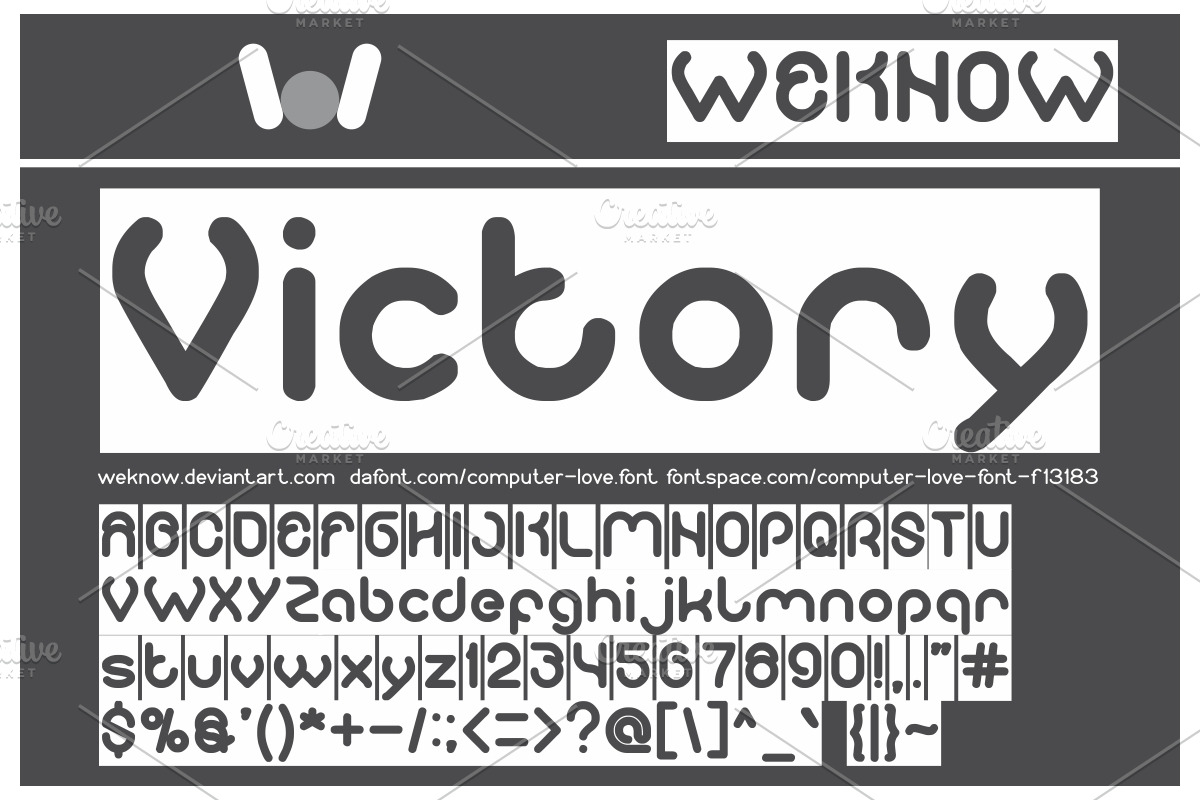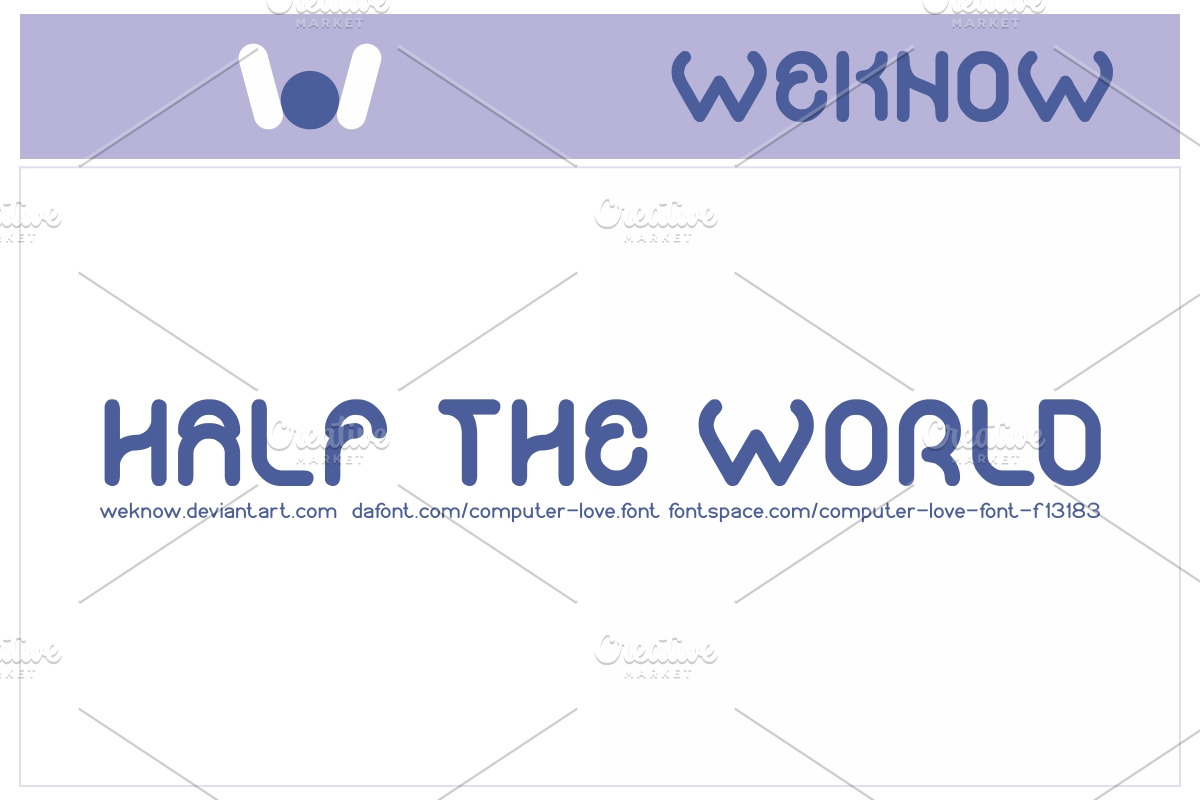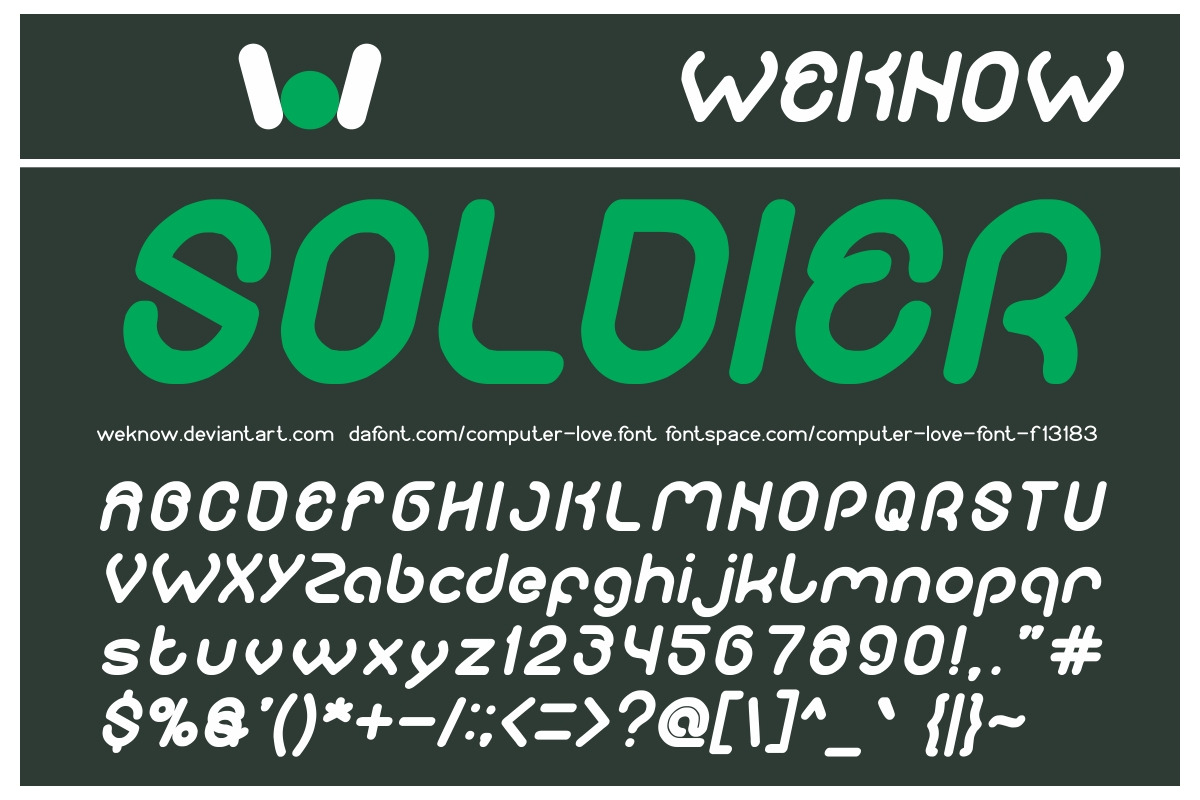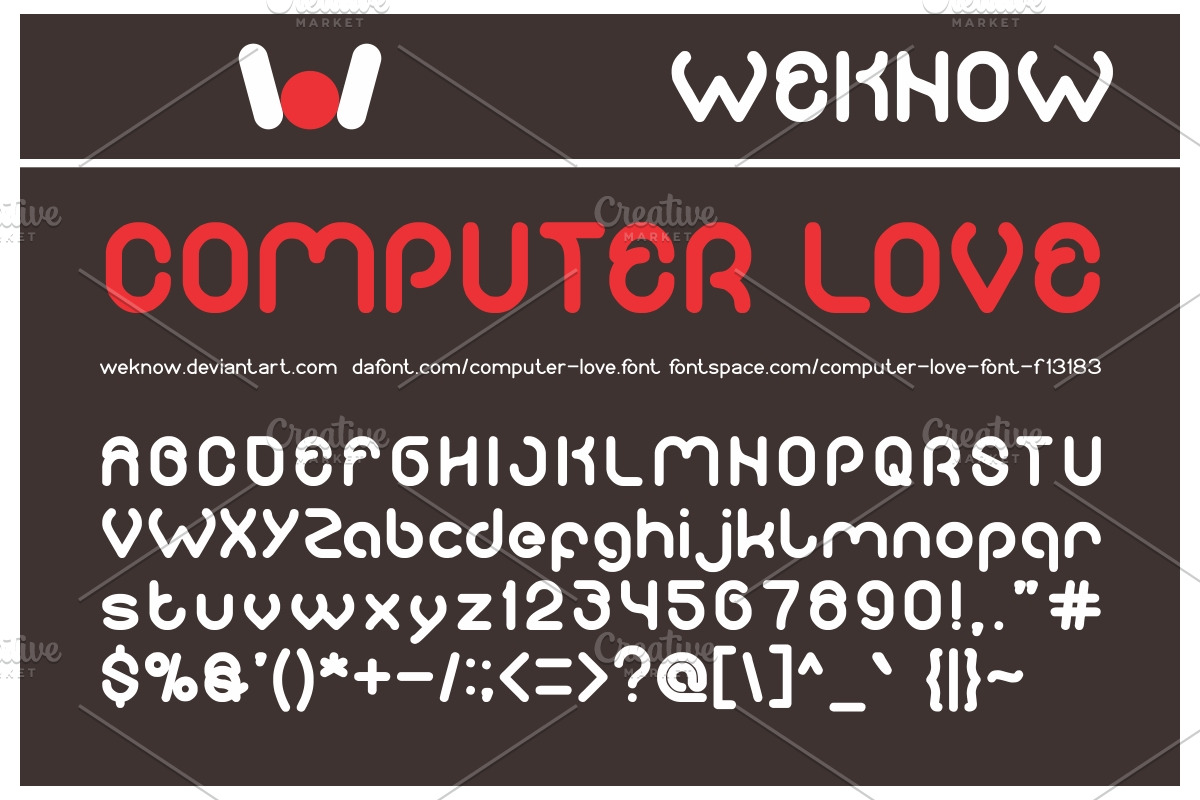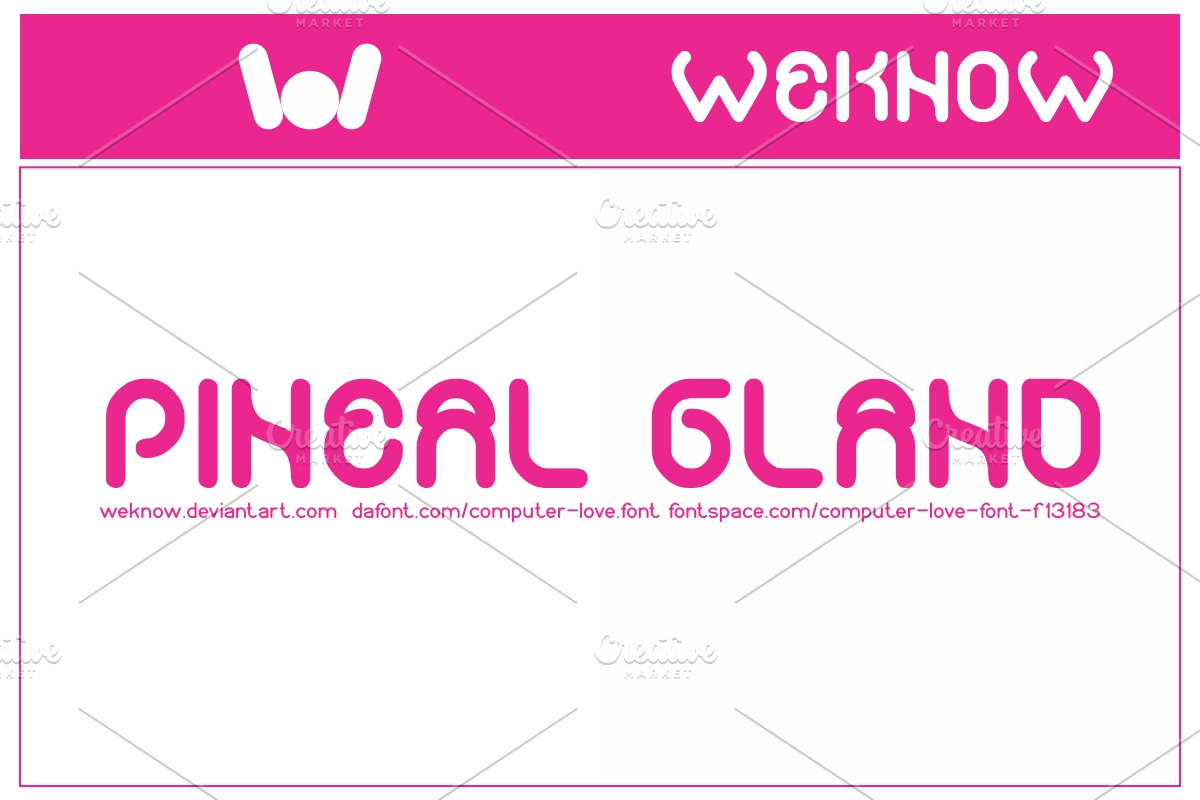
computer love font
available style: COMPUTER LOVE-Inverse, COMPUTER LOVE-Italic
Why computer love font is worth a look
computer love font by weknow fits naturally into Branding, posters, packaging, typography.